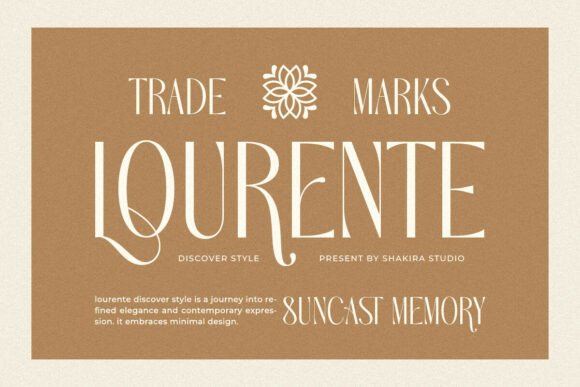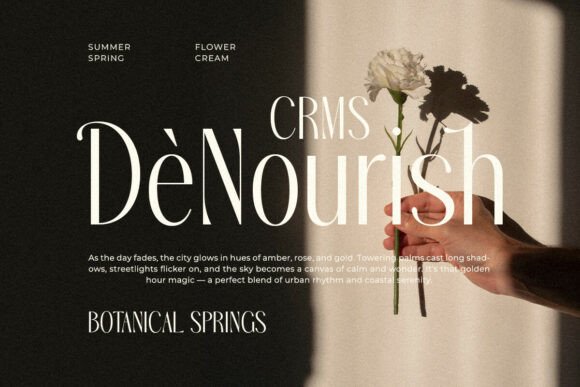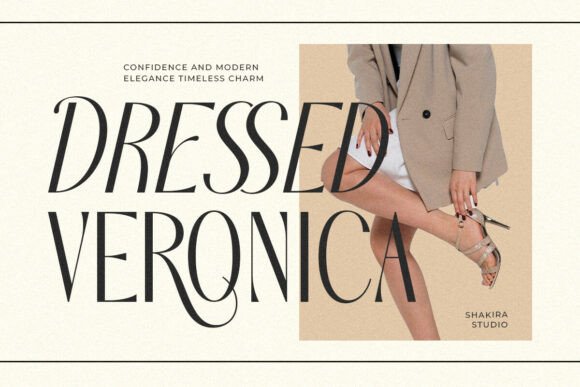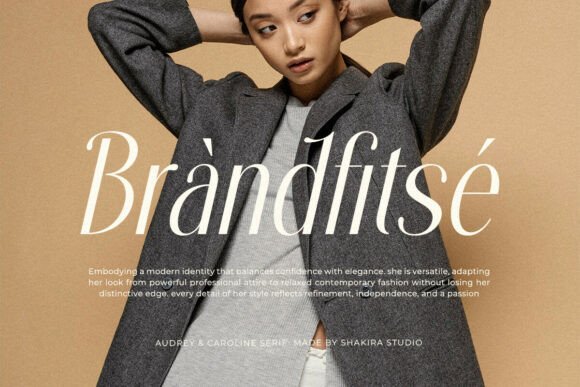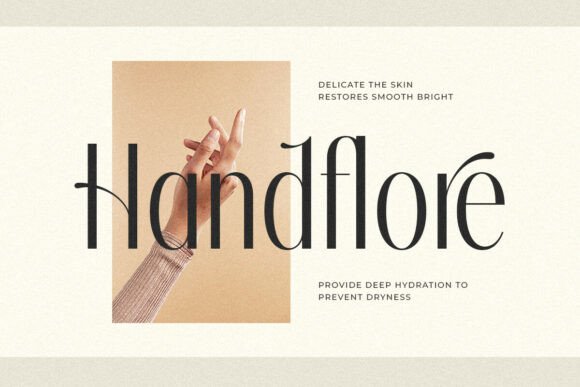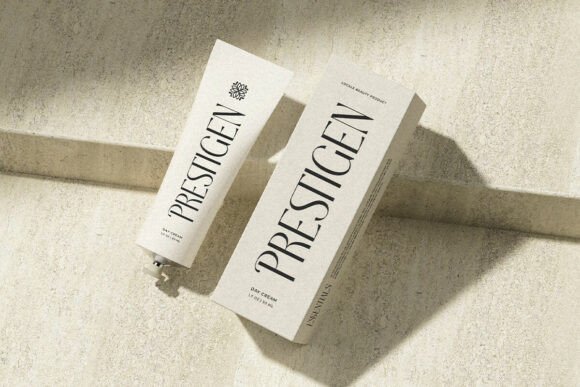
The Elegance of Audrey & Caroline: A Serif Typeface for the Ages
I’ll never forget the struggle I faced while working on a luxury brand’s editorial project. The client wanted a font that exuded high-end sophistication, but I was stuck in a font rut. That was until I stumbled upon Audrey & Caroline, an exquisite serif typeface that instantly elevated my design game. In this article, I’ll share my love for this elegant font, its features, and how to make the most of it in various design platforms.
An Honest Review of Audrey & Caroline
What I Love āØ
- š **Elegant and Refined**: Audrey & Caroline’s tall, slender letterforms and unique, flowing curves make it perfect for luxury branding and high-end magazine layouts.
- š **Timeless and Versatile**: This font seamlessly balances modern sophistication with classic legibility, making it suitable for a wide range of design projects.
- š° **Feminine and Chic**: The distinctive, elongated āyā and āgā give Audrey & Caroline a touch of femininity and whimsy.
- ā **High-Quality Craftsmanship**: The attention to detail in this font is exceptional, with crisp lines and precise curves.
Small Quirks or Limitations ā ļø
While Audrey & Caroline is an exceptional font, there are a few minor limitations to consider:
- š¤ **Limited Use in Body Text**: Due to its elegant and slender design, Audrey & Caroline may not be the best choice for lengthy body text. It’s better suited for headlines, titles, and short paragraphs.
- ā ļø **Requires Attention to Kerning**: As with any elegant serif font, kerning is crucial to ensure that the text looks polished and refined.
The Story Behind Audrey & Caroline
The story behind Audrey & Caroline’s creation is one of passion and dedication. The font’s designer, inspired by the classic elegance of Audrey Hepburn and the whimsy of Caroline, set out to create a typeface that embodied the perfect balance of sophistication and femininity. With meticulous attention to detail and a deep understanding of typography, Audrey & Caroline was born.
| Font Name | Audrey & Caroline Font |
| Author | Shakira Studio |
Q: What makes Audrey & Caroline unique?
A: Audrey & Caroline’s unique blend of modern sophistication and classic legibility, combined with its distinctive letterforms and flowing curves, make it a standout font.
Q: Is Audrey & Caroline suitable for body text?
A: While Audrey & Caroline is an elegant font, it’s better suited for headlines, titles, and short paragraphs. For lengthy body text, consider a more traditional serif font.